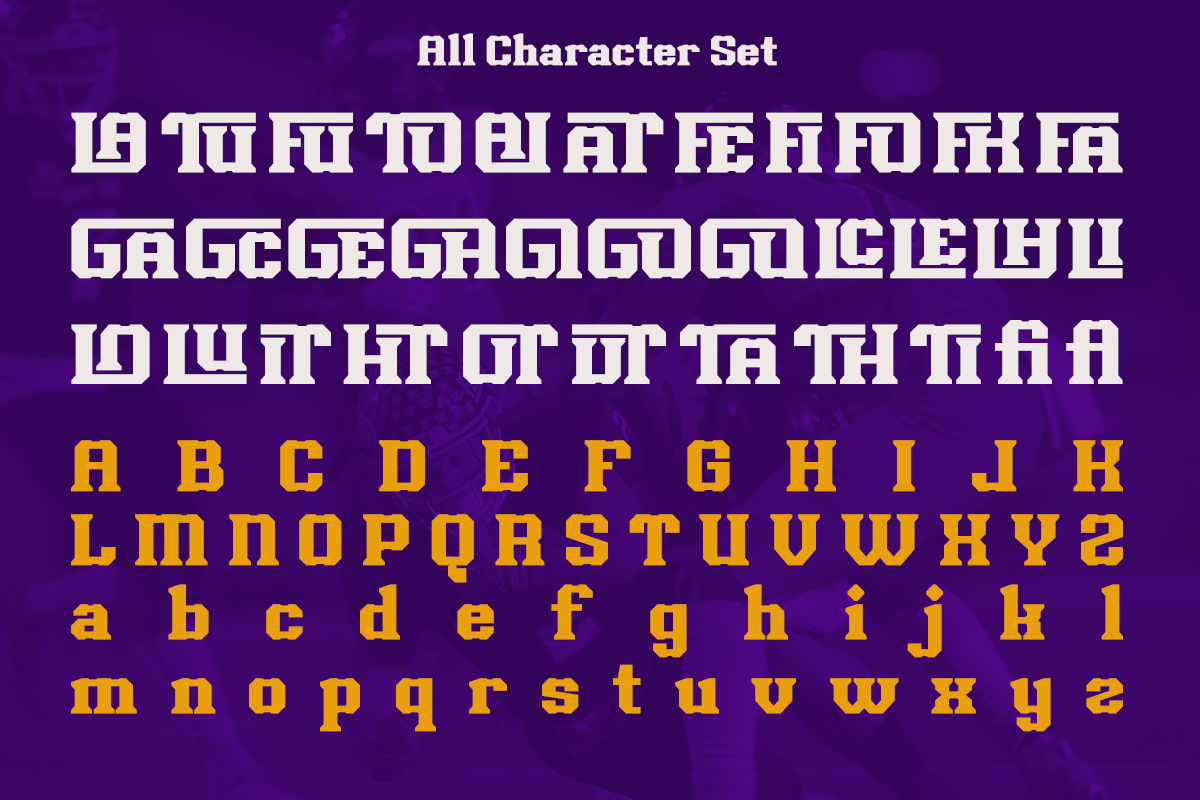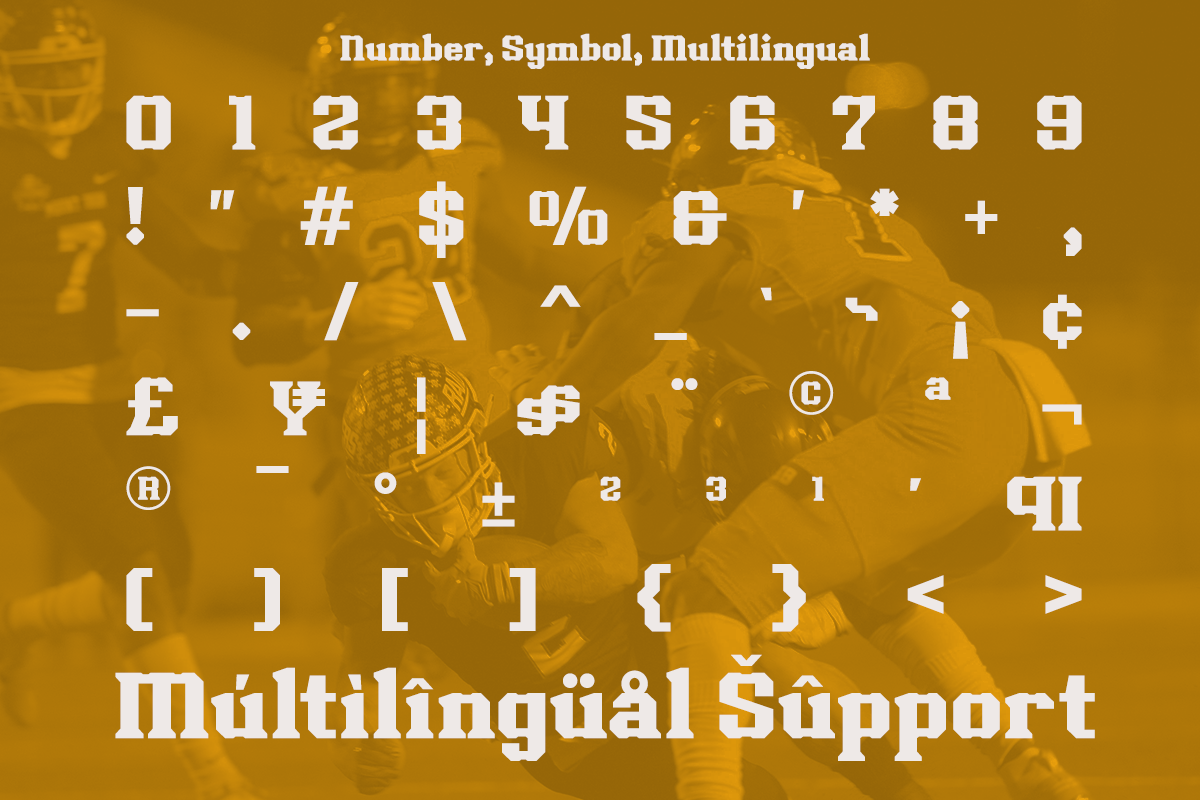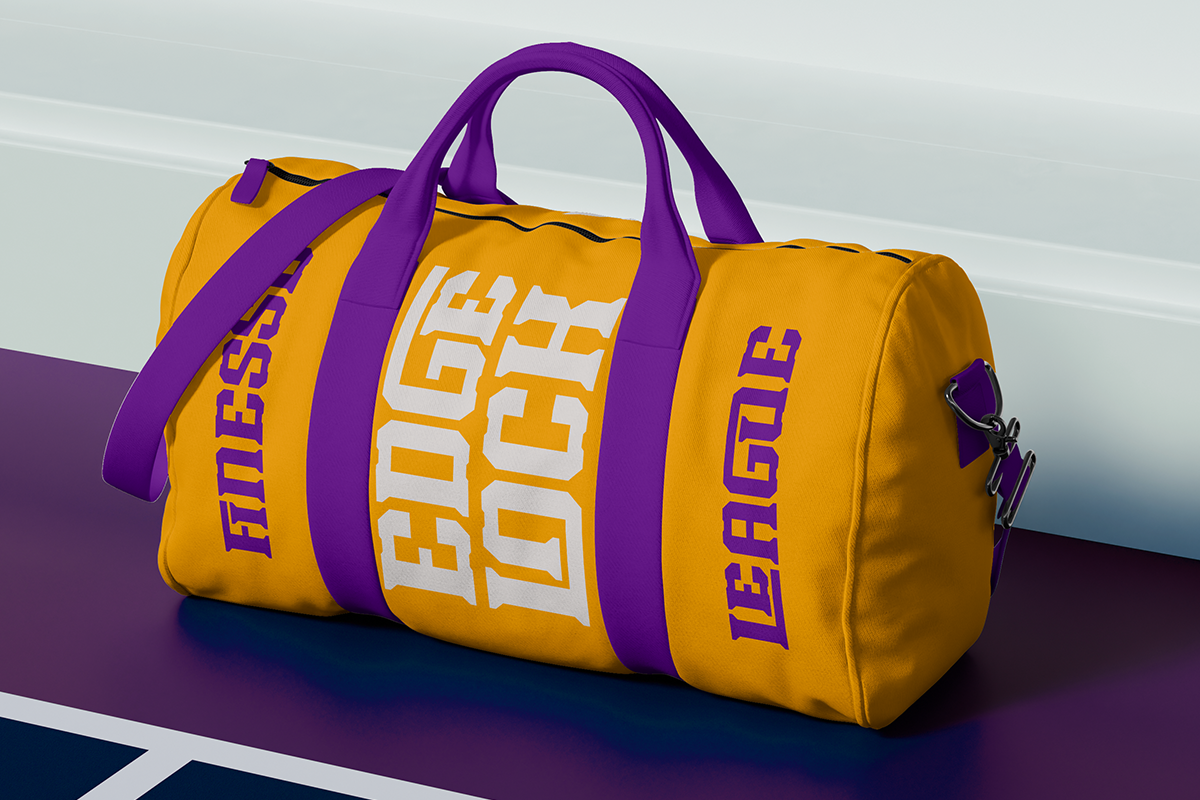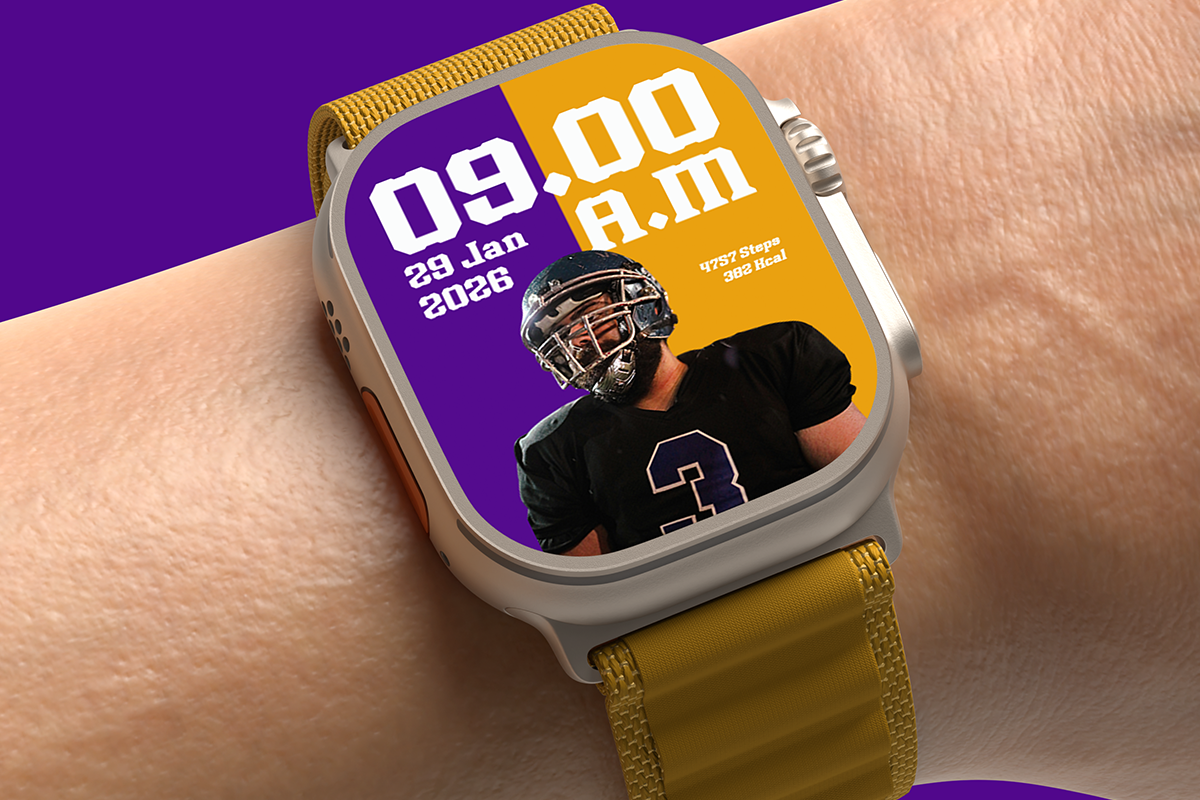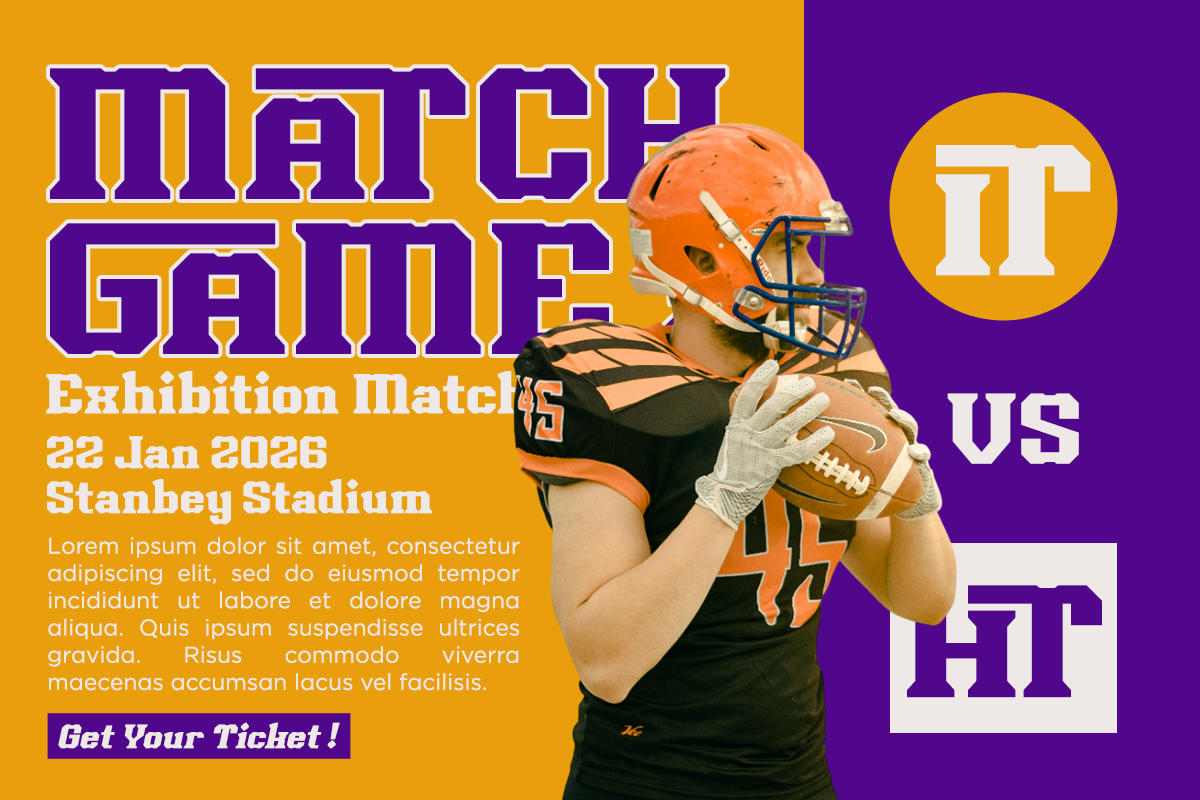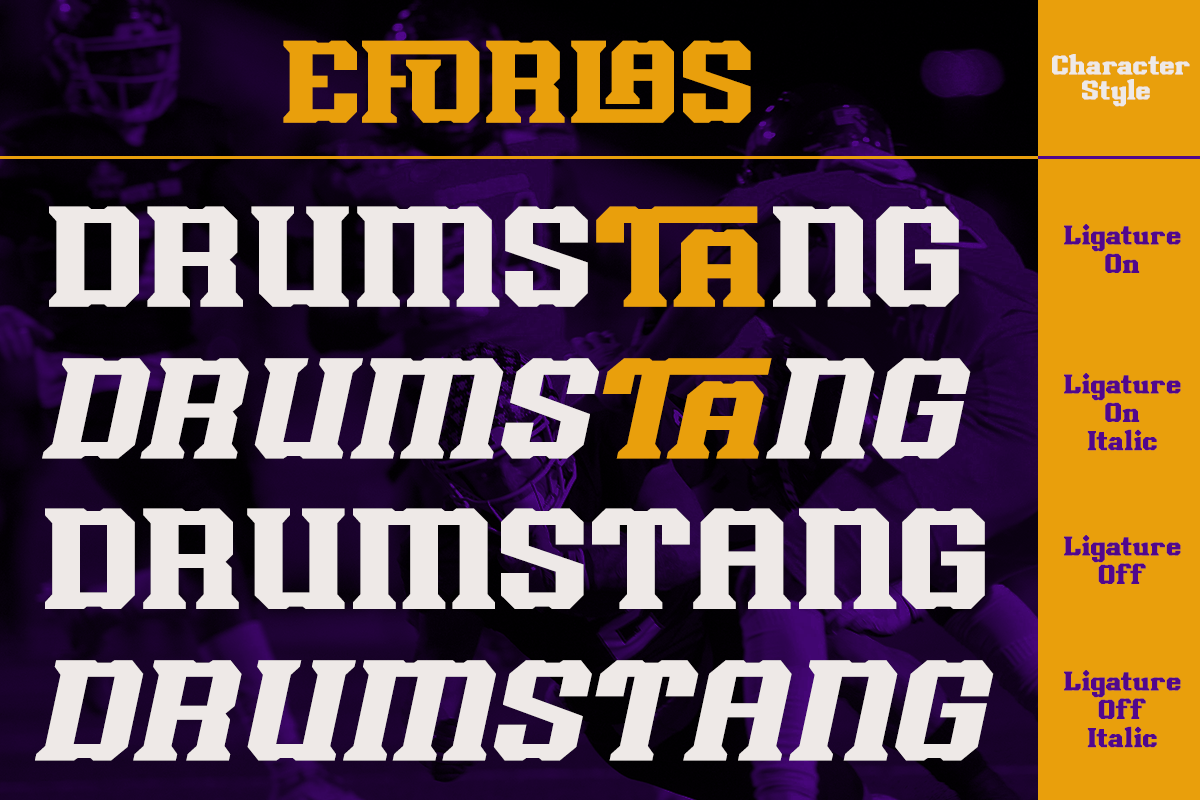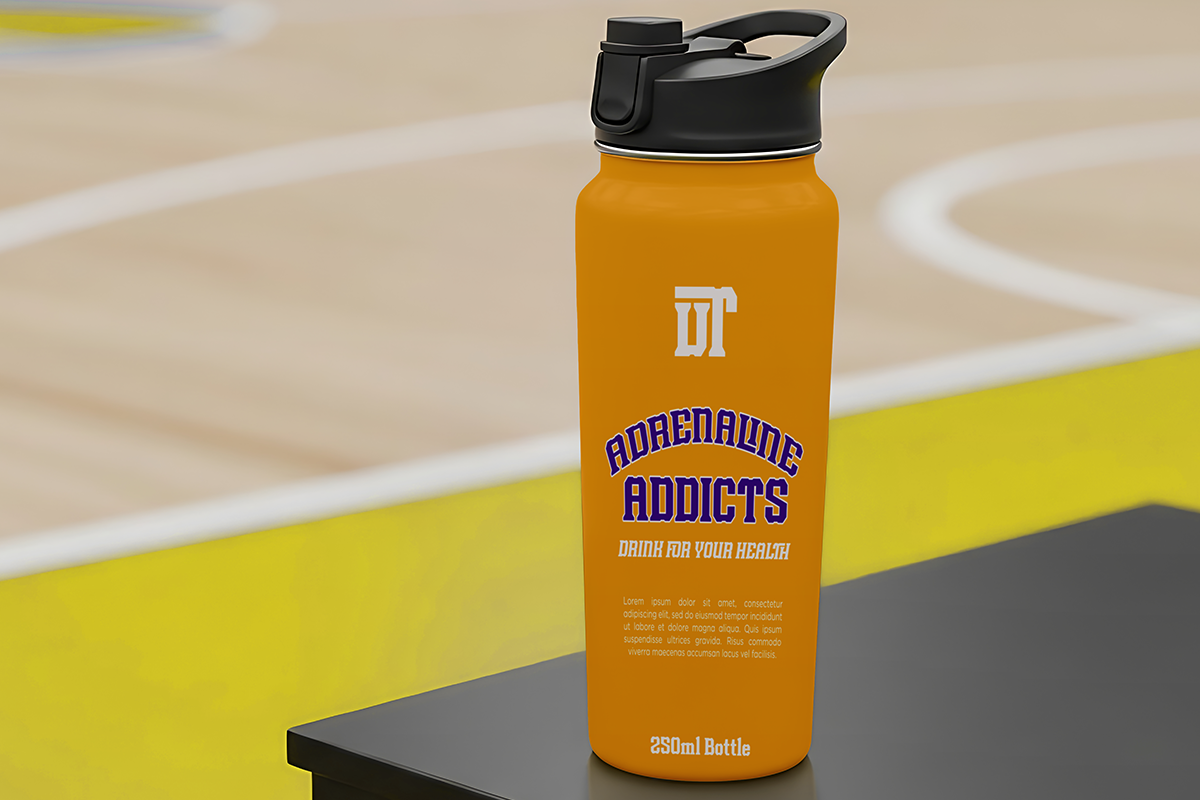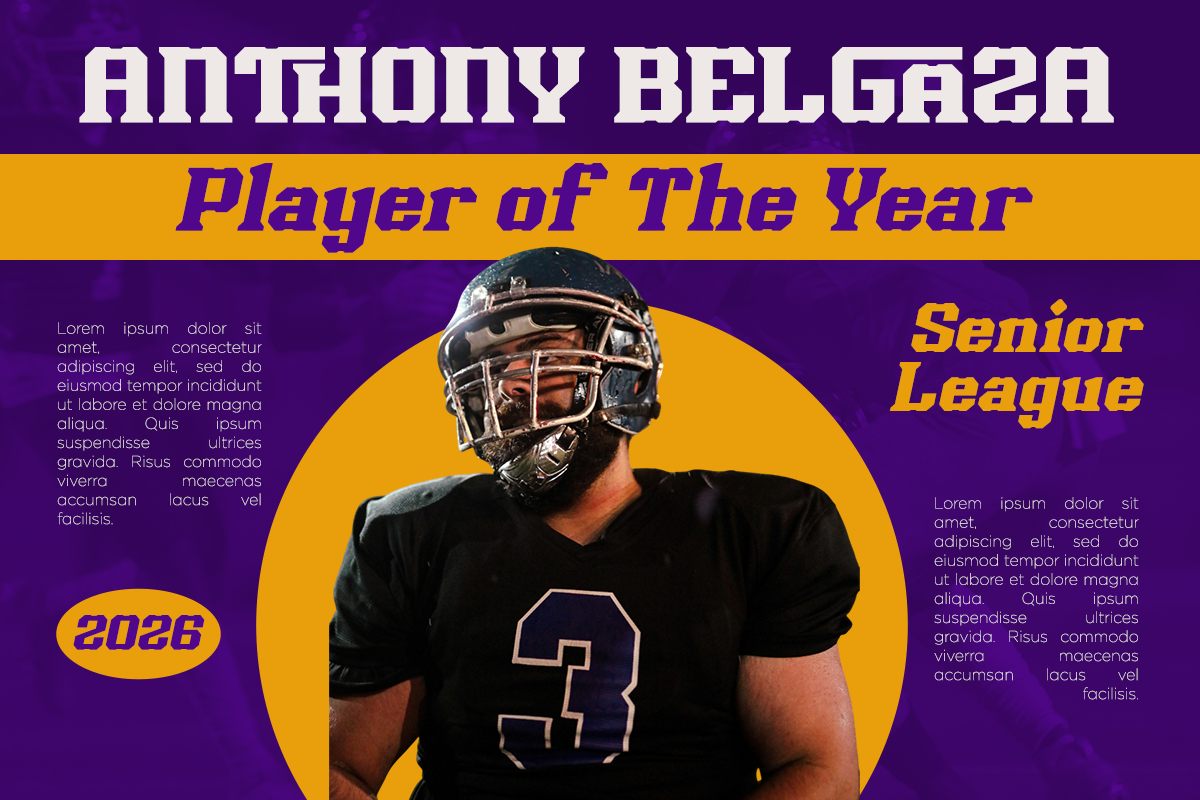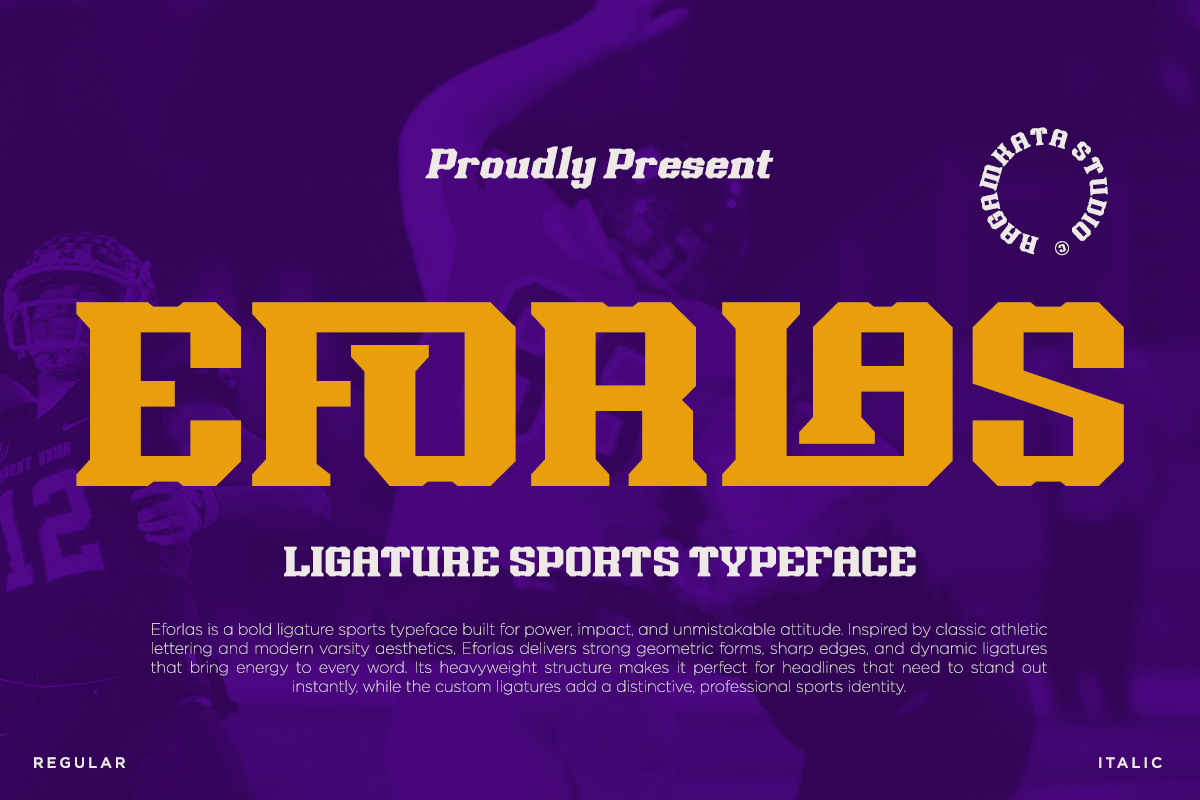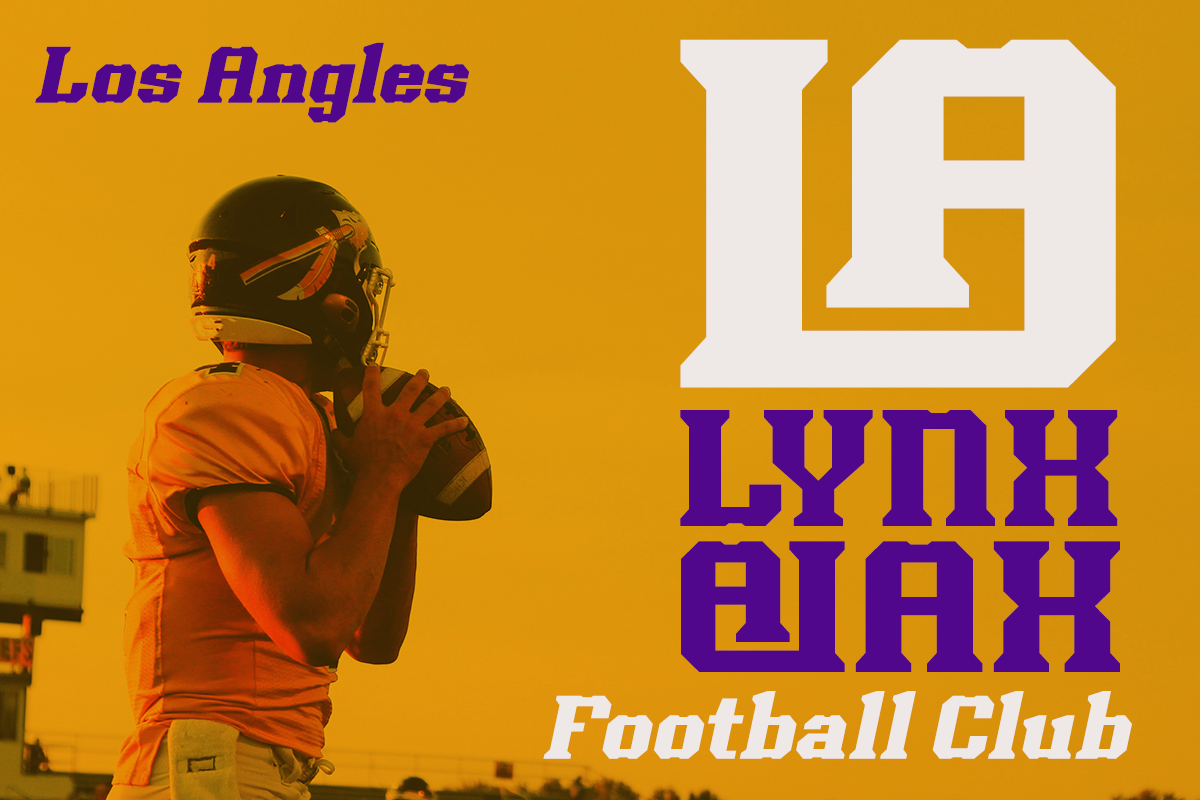
Eforlas - Ligature Sport Typeface
Eforlas is a bold ligature sports typeface built for power, impact, and unmistakable attitude. Inspired by classic athletic lettering and modern varsity aesthetics, Eforlas delivers strong geometric forms, sharp edges, and dynamic ligatures that bring energy to every word. Its heavyweight structure makes it perfect for headlines that need to stand out instantly, while the custom ligatures add a distinctive, professional sports identity.
Perfect for sports branding, team logos, jersey numbers, esports logos, athletic apparel, posters, social media graphics, YouTube thumbnails, event promotions, magazine headlines, packaging, and merchandise designs.
- Stylish Ligature set
- Symbol, and Number